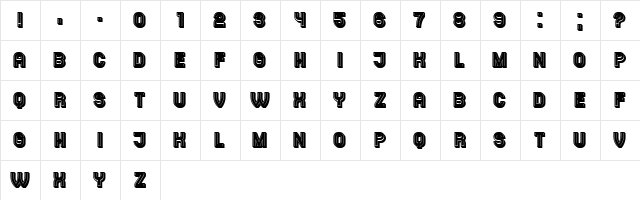
Medication Black
Design Context for Medication Typeface
Medication offers clean, dependable letterforms without strong stylistic allegiance, making it a practical choice for designers who need flexibility.
Pro Tip: Use Medication in both headline and body roles to test its range before committing to a single application.